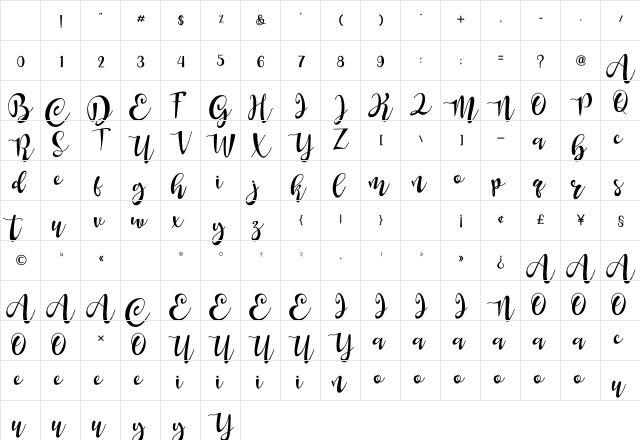
Complete Aunten Bedany Regular glyph index. Displaying only characters natively supported by Aunten Bedany Regular font.
Aunten Bedany is a composed and adaptable typeface that performs quietly and consistently across a wide range of design contexts.